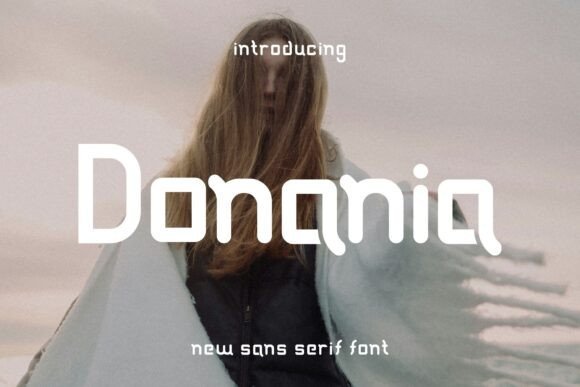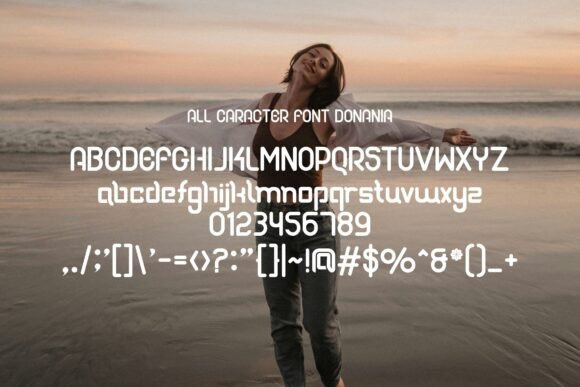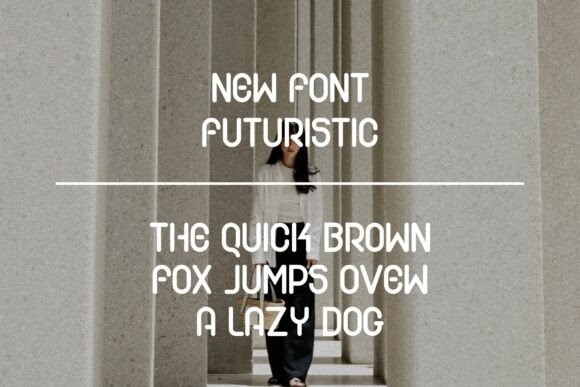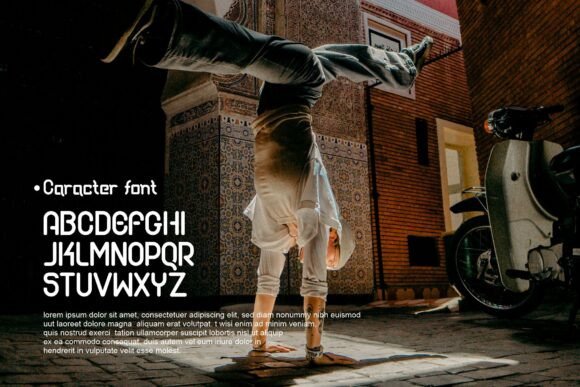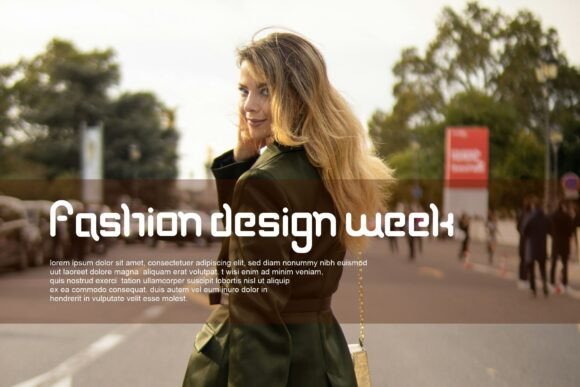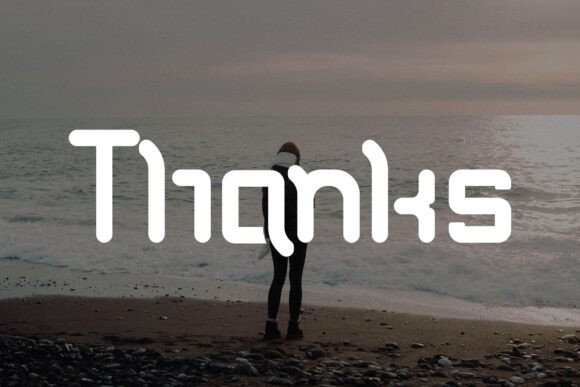
Unleashing Your Creativity with Donania Font
There’s nothing quite like the rush of inspiration that comes when you stumble upon the perfect font for your next design project. The words flow effortlessly, and your vision starts to take shape. For many designers, this moment is what drives them to create something truly special. And, if you’re one of them, you’ll love discovering the Donania Font – a sans serif with a charming touch of style that’s sure to elevate your designs.
With its unique blend of modernity and whimsy, the Donania Font is perfect for those who want to add a touch of personality to their work without sacrificing relevance. Whether you’re working on a branding project, a social media campaign, or a digital product, this font is sure to bring your vision to life.
Donania Font Key Features
- Font Family: Donania Font is a sans-serif font family, designed for modern and clean typography.
- Unique Characteristics: Donania Font features a unique blend of modern and vintage elements, with clean lines, geometric shapes, and a subtle flair of elegance.
Donania Font Review
As a designer, I’ve had the chance to experiment with the Donania Font, and here’s my honest review.
- Clean and elegant aesthetic: The Donania Font has a sleek, modern feel that makes it perfect for high-end designs.
- Wide range of weights: With multiple weights available, you can easily create a consistent visual hierarchy in your designs.
- Open-type features: The font includes advanced features like swashes and ligatures, which can add a touch of sophistication to your designs.
- Not ideal for body text: While the Donania Font is great for headlines and titles, it may not be the best choice for large blocks of body text due to its delicate appearance.
The Donania Font is a solid choice for designers who want to create a sophisticated, high-end look. While it may have some limitations, its clean aesthetic and advanced features make it a great addition to any design toolkit.
To get the most out of the Donania font, use it sparingly for headings and titles to create visual hierarchy. Pair it with a clean sans-serif font for body text to create a balanced and modern design.
Use the Donania font for creative projects that require a touch of elegance and sophistication, such as:
– Branding and marketing materials
– Magazine and book titles
– Social media graphics and ads